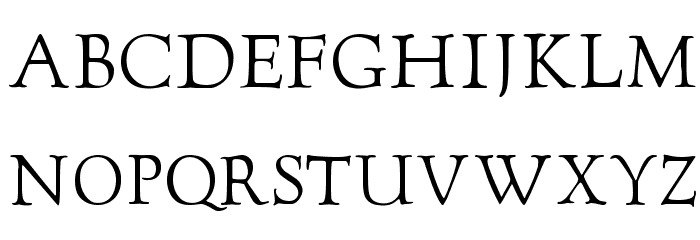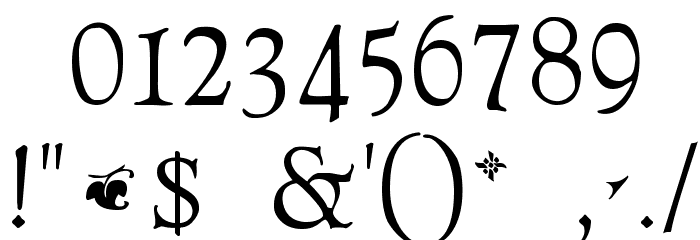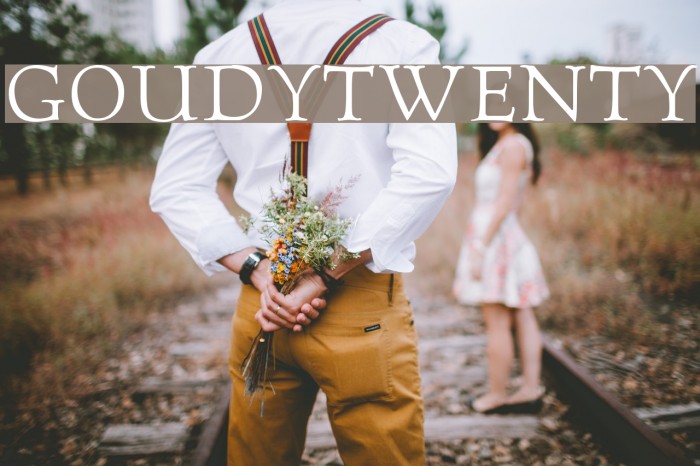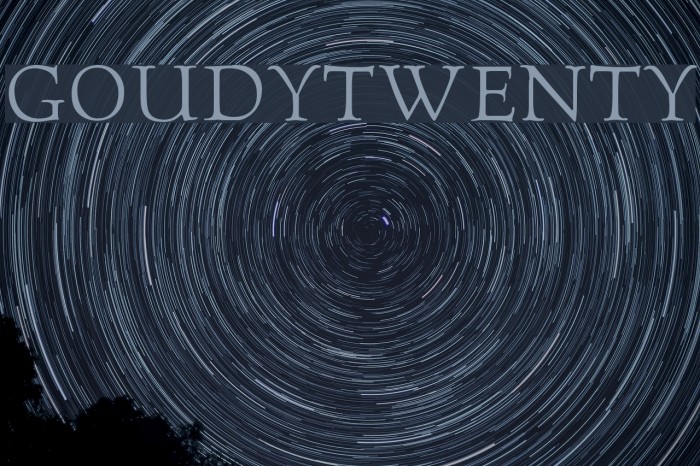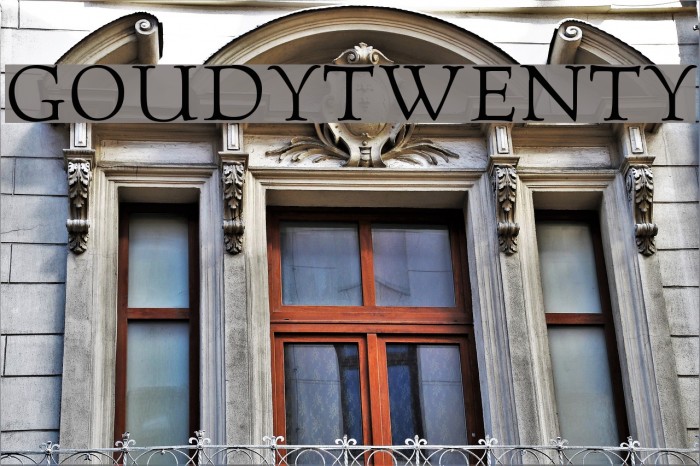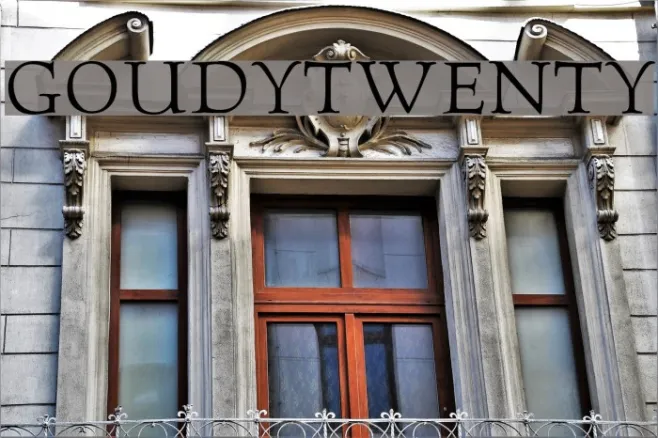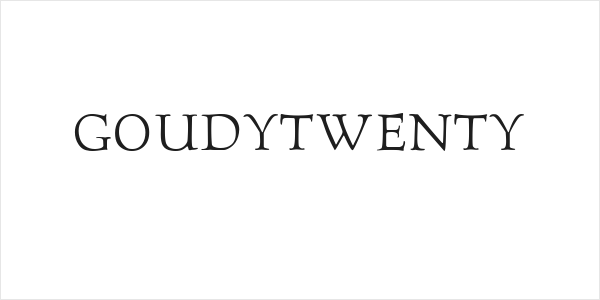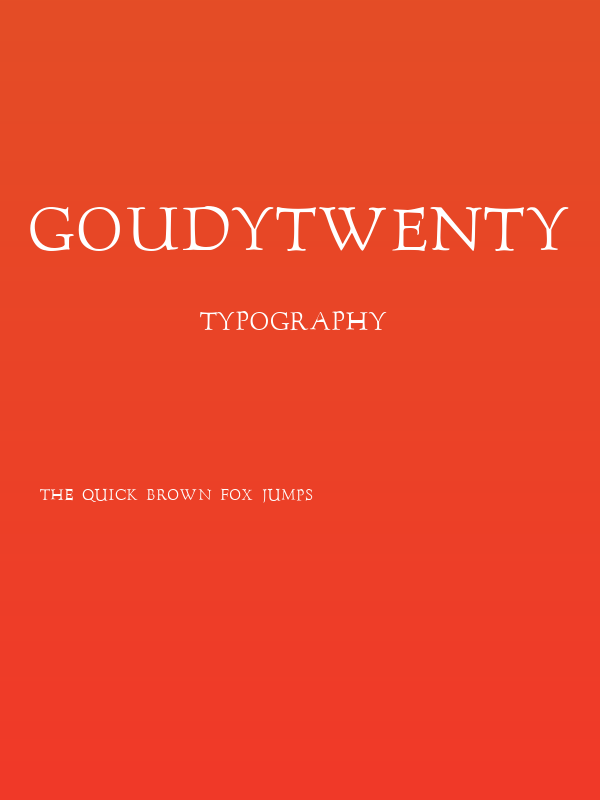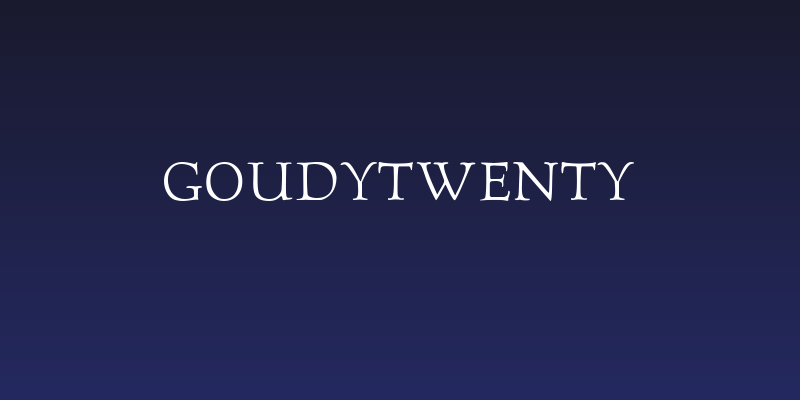
GoudyTwenty Font
This font exhibits a classic serif style with elegant and slightly curved serifs that give it a timeless and sophisticated appearance. The characters are well-proportioned, with a moderate contrast between thick and thin strokes, enhancing readability while maintaining a refined aesthetic. The numerals are distinct and harmonize well with the alphabet, ensuring clarity in both textual and numerical contexts. The special characters are thoughtfully designed, complementing the overall style of the font. This font's design is suitable for conveying a sense of tradition and reliability.
A classic serif font with elegant curves and moderate contrast, ideal for traditional and sophisticated designs.
- Proposed Projects: This font is perfect for projects that require a touch of elegance and tradition, such as book covers, formal invitations, certificates, and editorial layouts.
- Overall Style: Classic